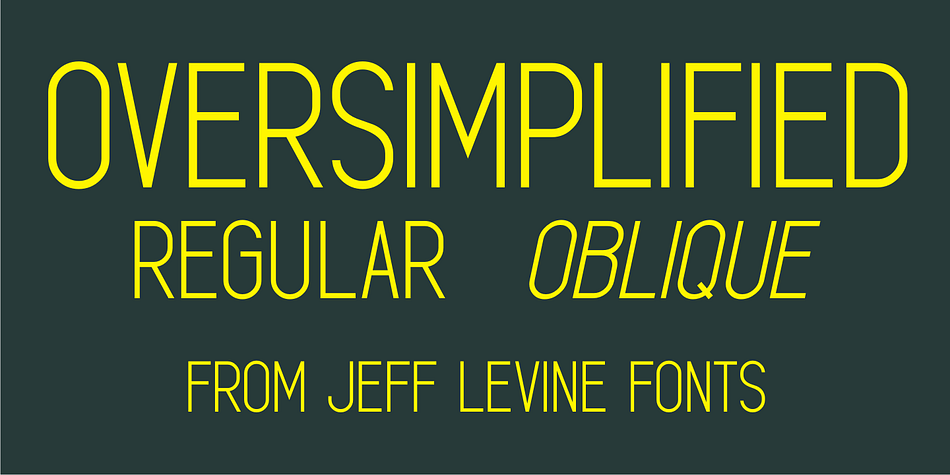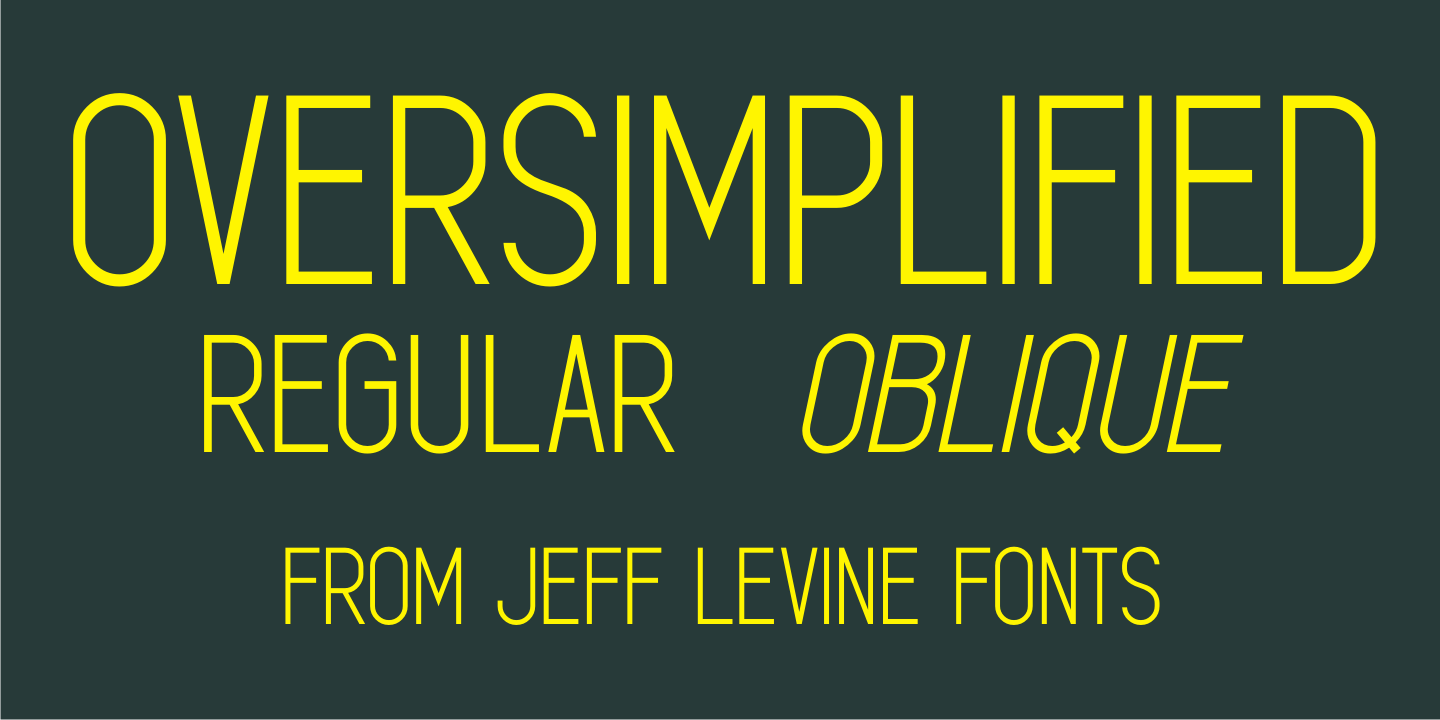
Designed by Jeff Levine, Oversimplified JNL is a display sans font family. This typeface has two styles and was published by Jeff Levine Fonts.
Oversimplified JNL is based on some examples of lettering silk screened onto plastic pieces for use on an interchangeable sign board.
These thin, monoline letters are modular in nature and have the look of a ‘constructed’ alphabet.
Oversimplified JNL is available in both regular and oblique versions.